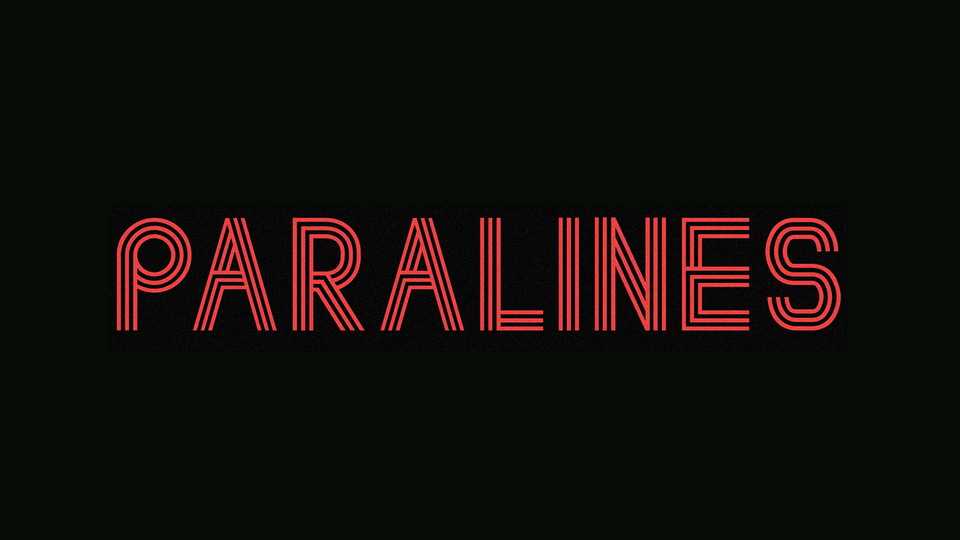
Download Paralines font, a creative multiline typeface with a retrofuturistic vibe to it. inspired from both modern day fonts and retro design in the past.
Designer: Lewis Latham